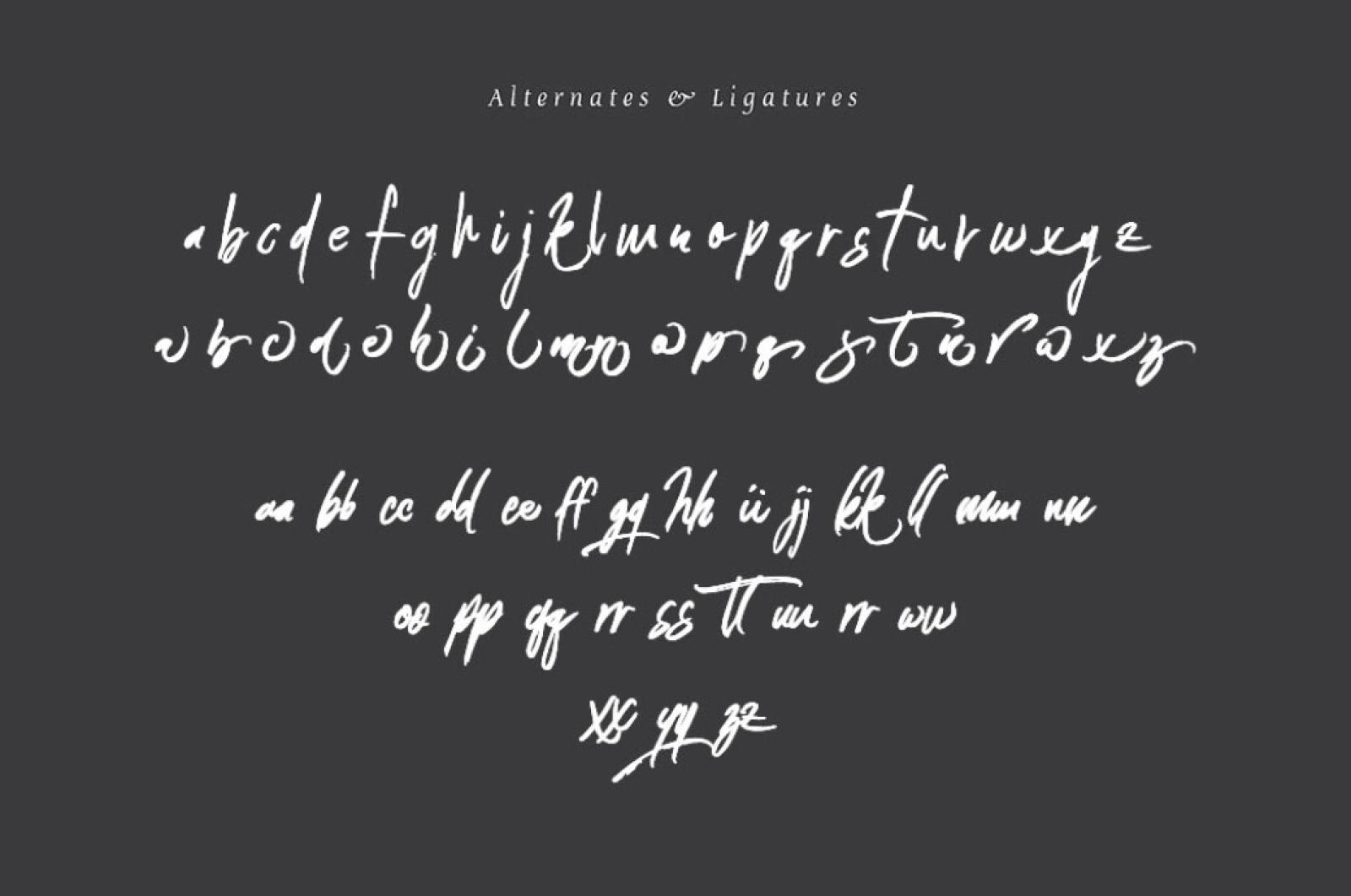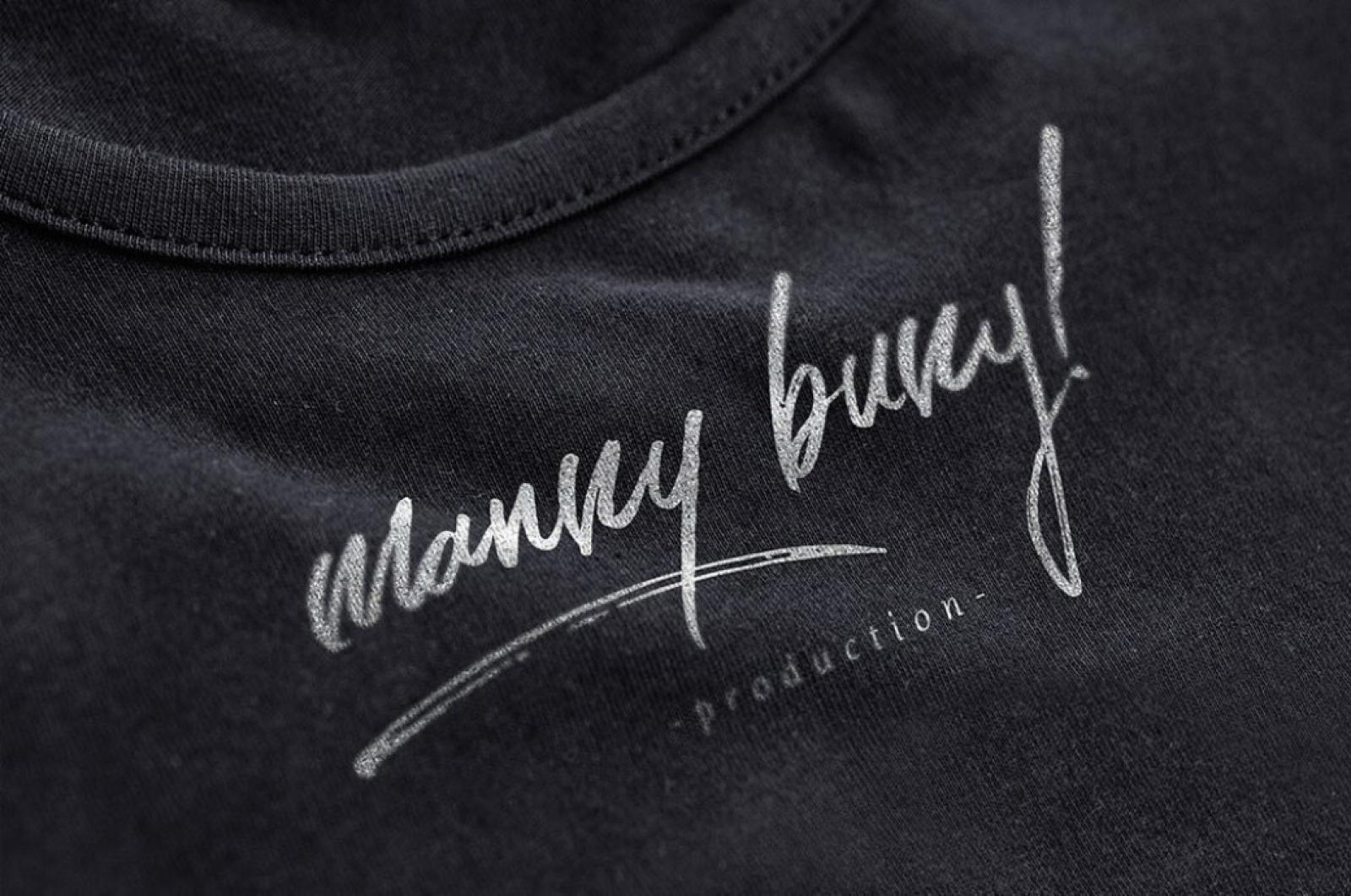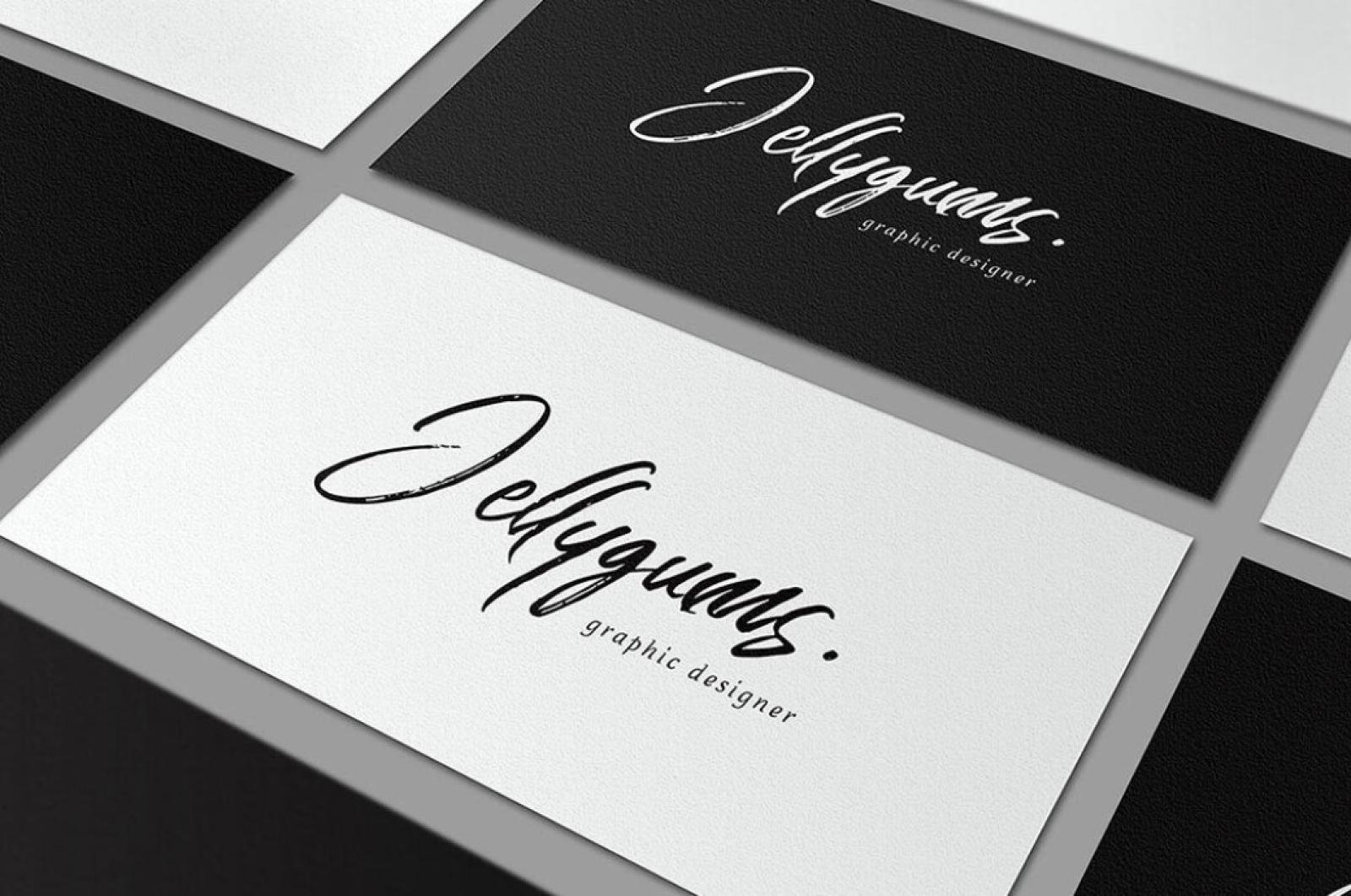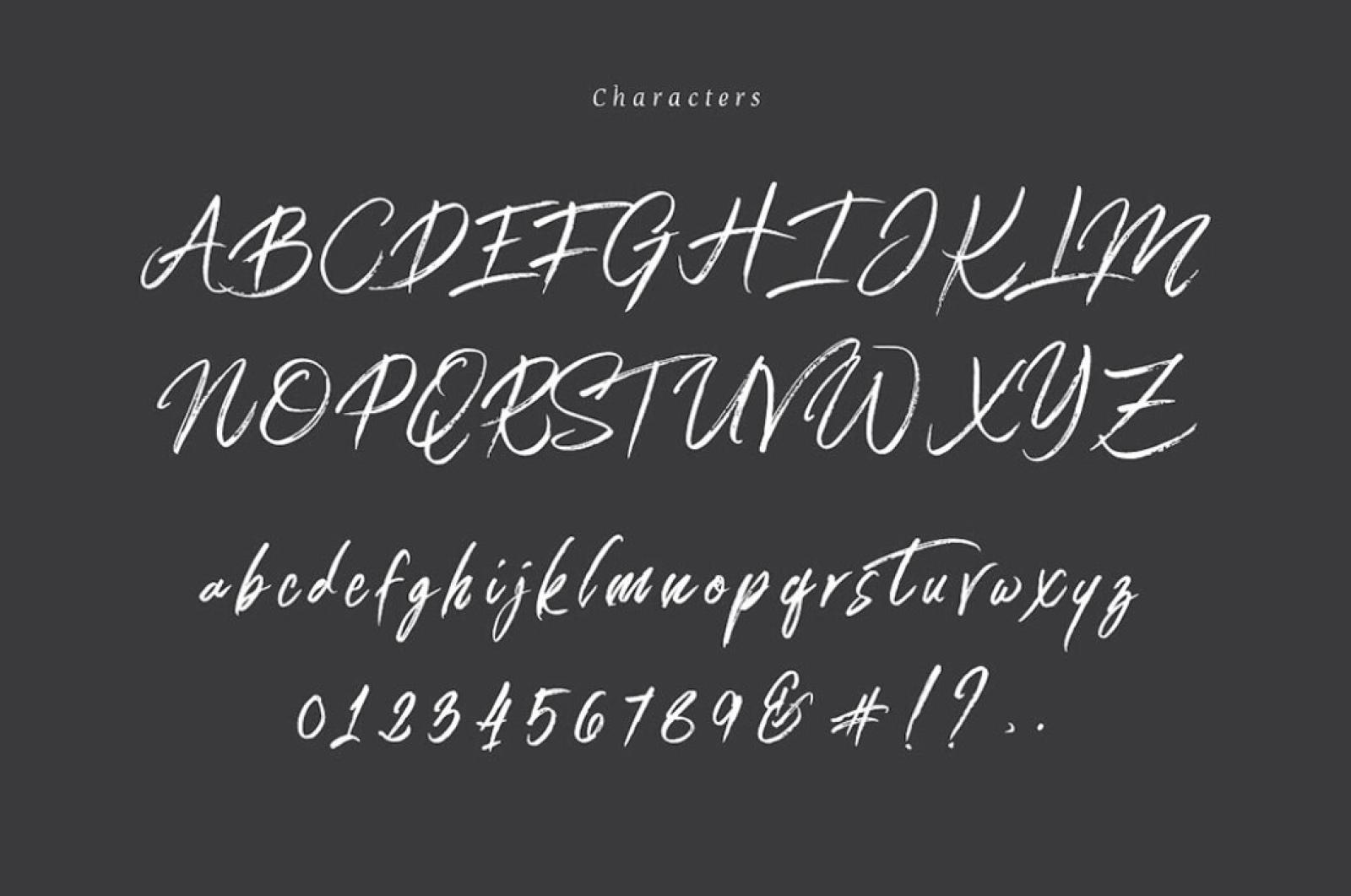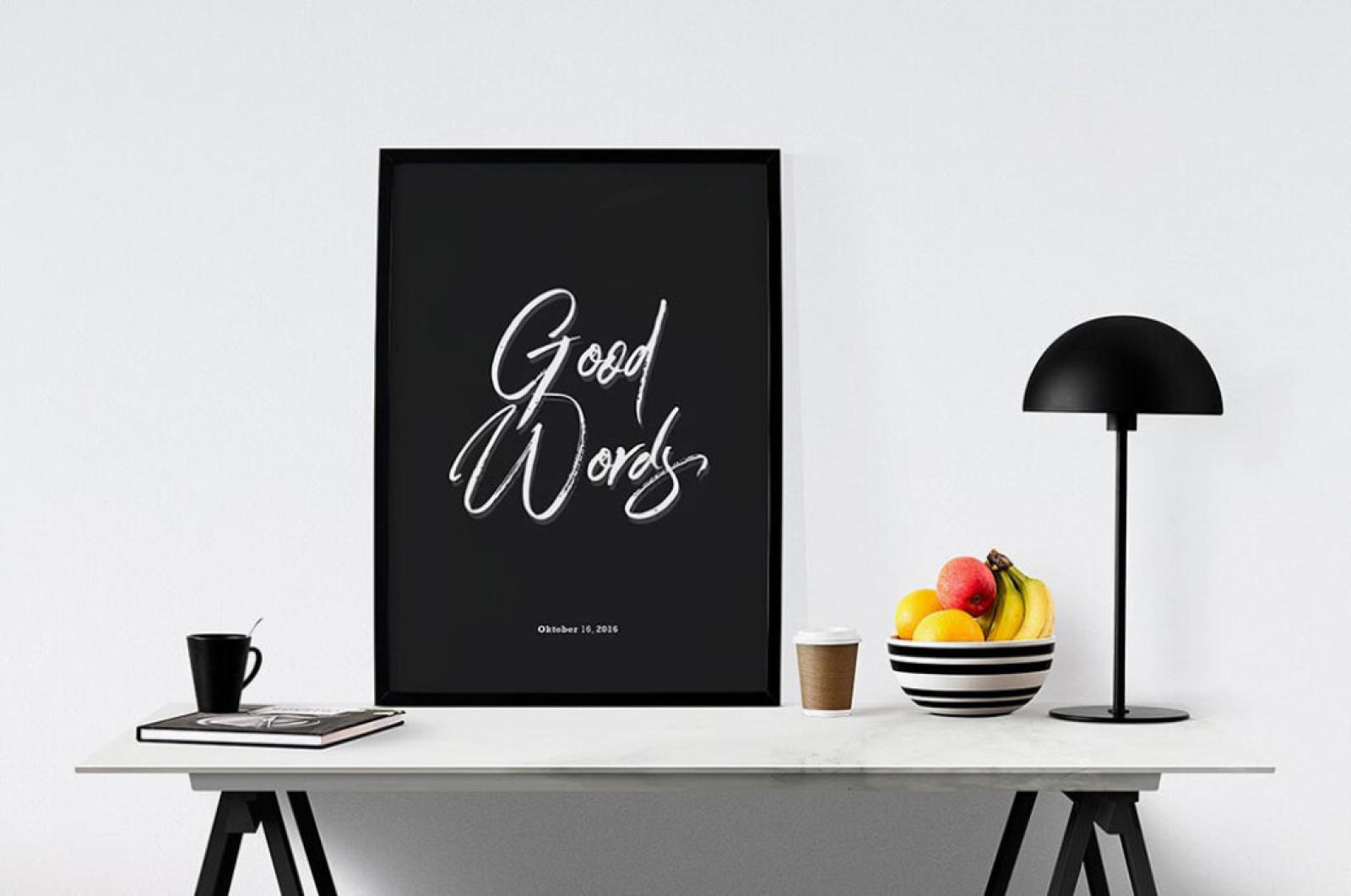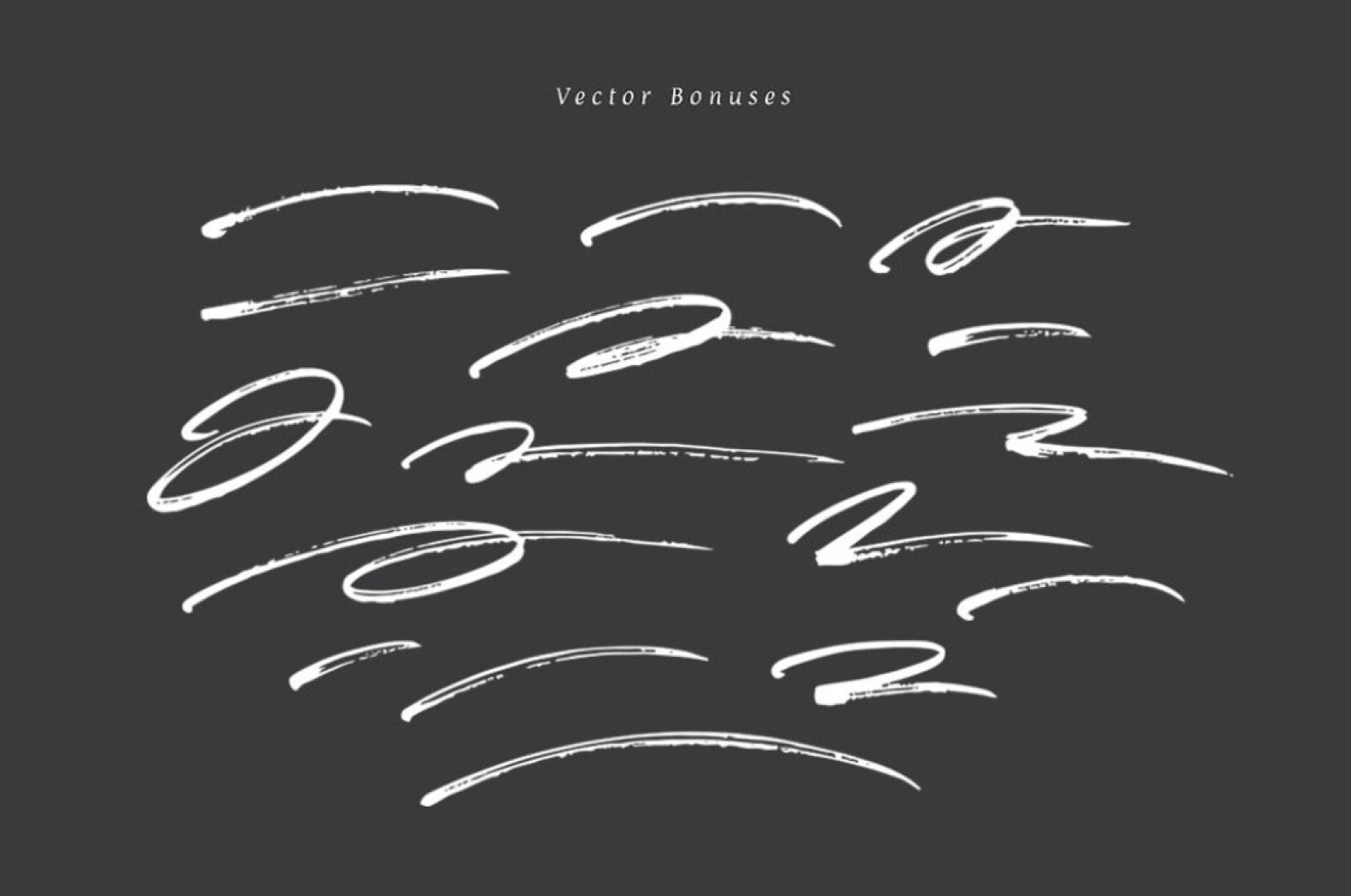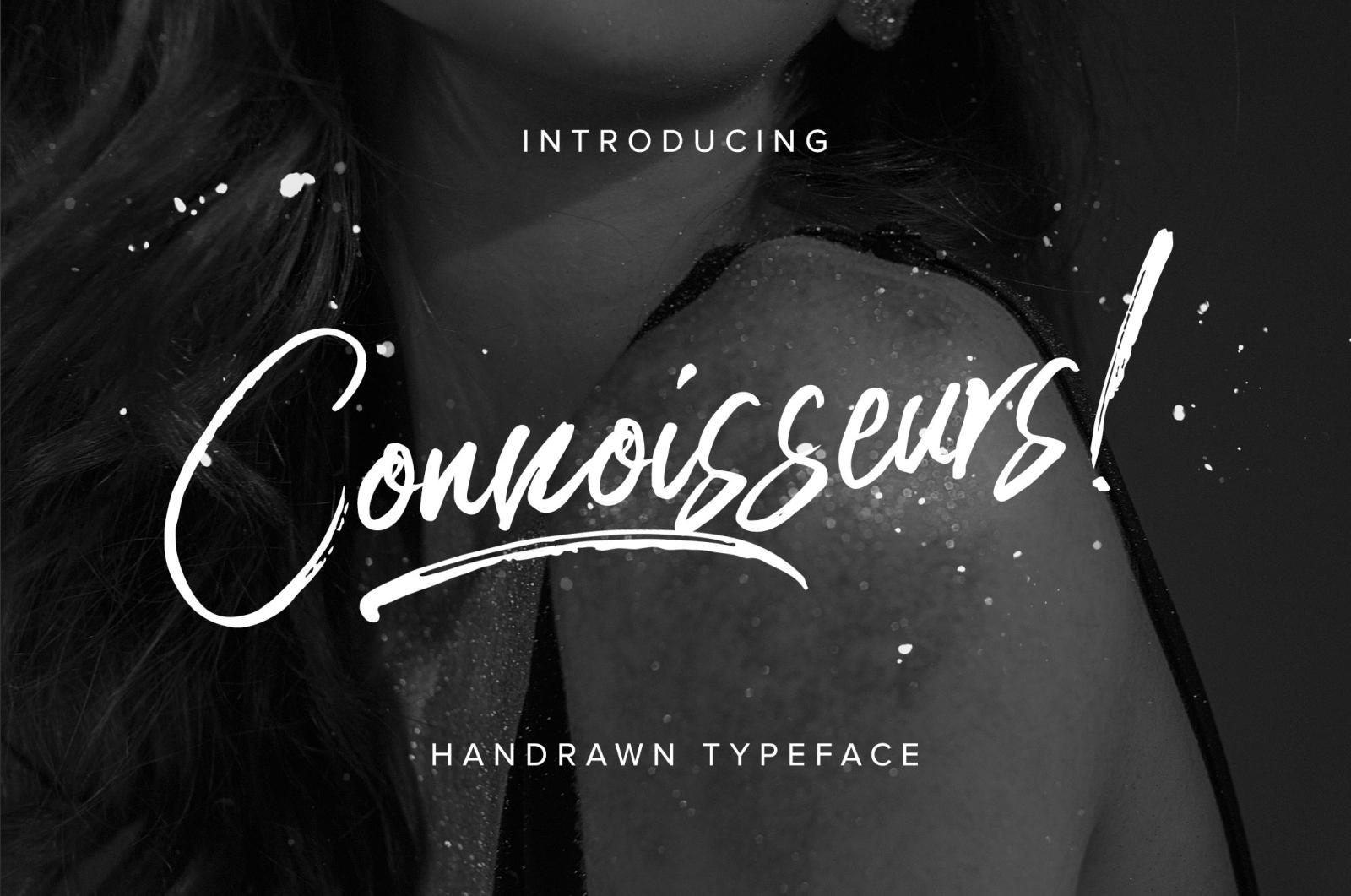
Connoisseurs Typeface
Are you ready for a hand-drawn brush font striking with its grace? Not a single trait of order, but that's what appeals to us most. Oh, wait: also some vector bonuses, coming along!
Ligatures are available for several lowercase characters, so you may feel confident, that your product will look purely natural, while you're to deal with double letters or something of the kind. Careless dashes will bring the artistic mood to craft posters for home or studio, stylish notebooks, and vibrant spring clothing. Awesome, isn't it?